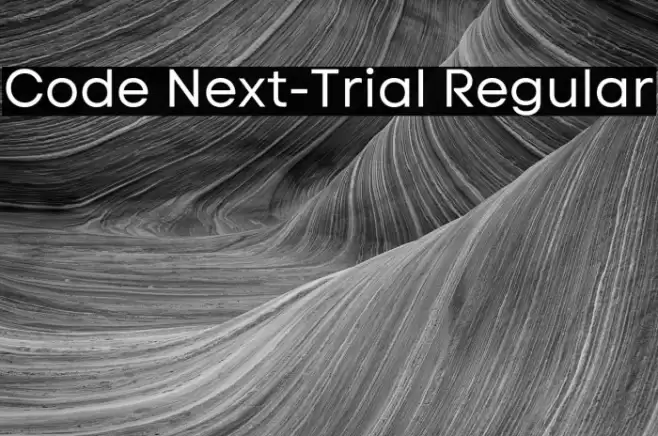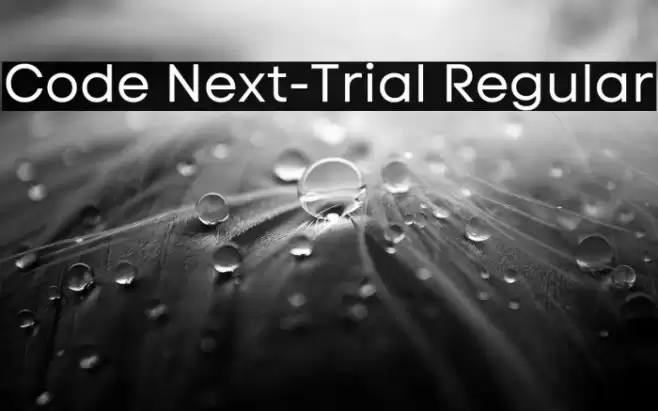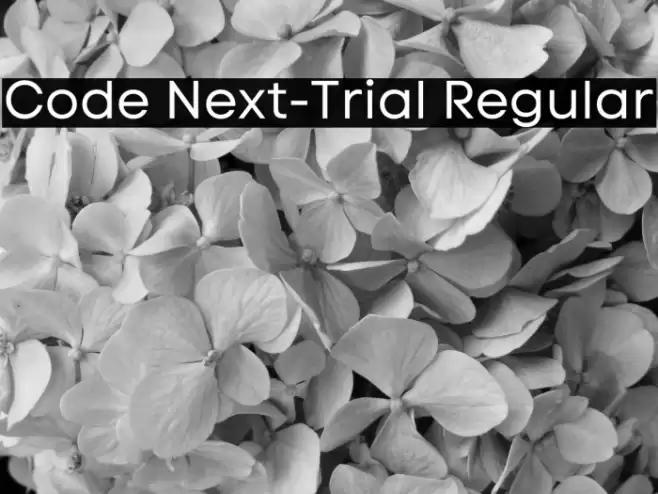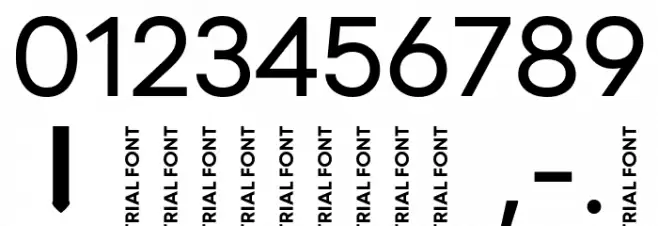
Code Next-Trial Regular Font
Code Next-Trial Regular Description
This font features a clean and modern sans-serif design, characterized by its geometric shapes and uniform stroke widths. The letters are well-proportioned, with a consistent height and width that provide a balanced appearance. The uppercase and lowercase letters maintain a harmonious relationship, while the numerals are clear and easily distinguishable. Special characters are designed with simplicity in mind, ensuring readability across various applications. The overall aesthetic is minimalistic, making it suitable for contemporary design projects.
A modern, geometric sans-serif font with clean lines and balanced proportions from Regular fonts.
- Proposed Projects: Ideal for branding, web design, advertising, and editorial projects where a modern and clean look is desired.